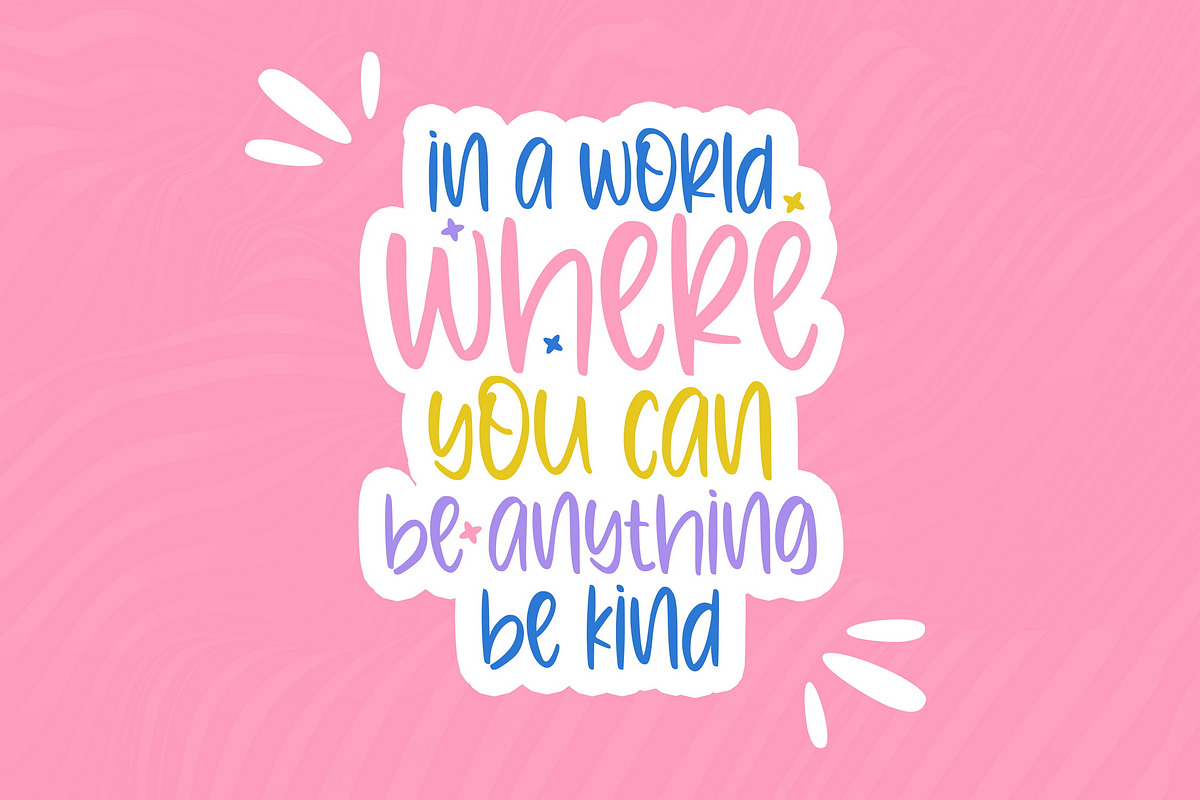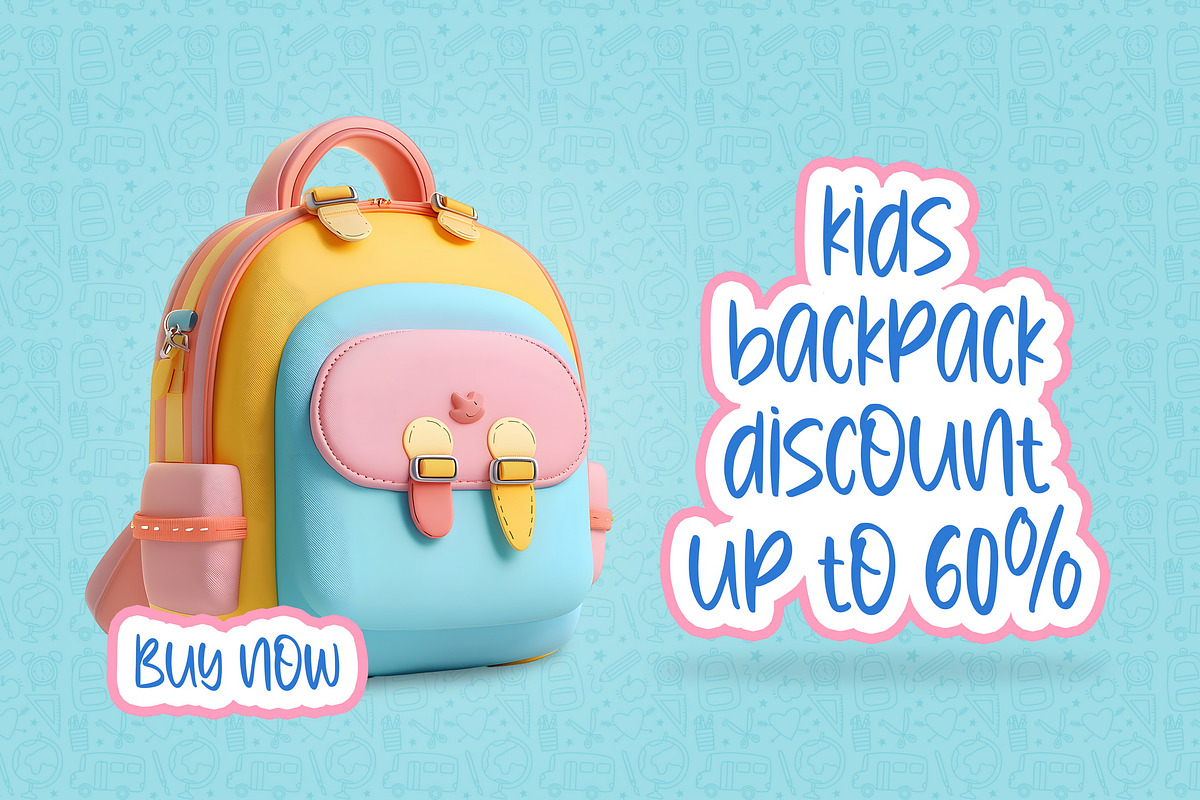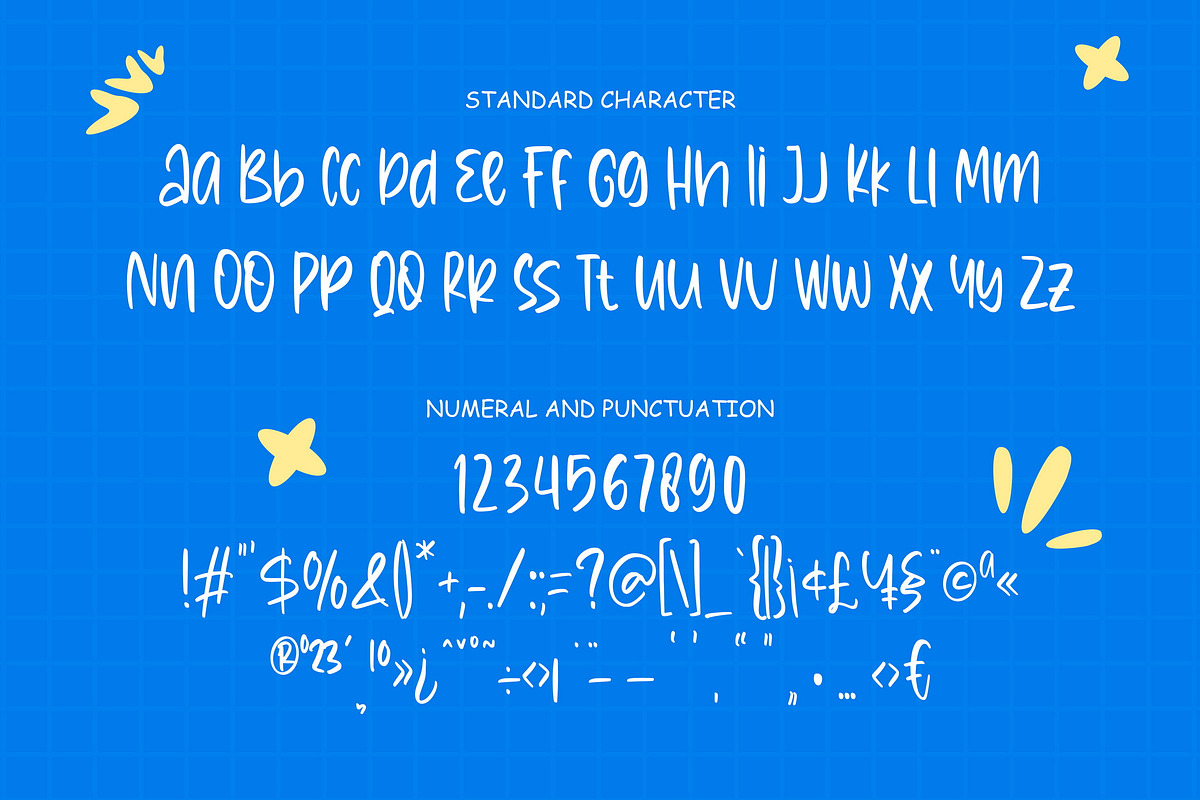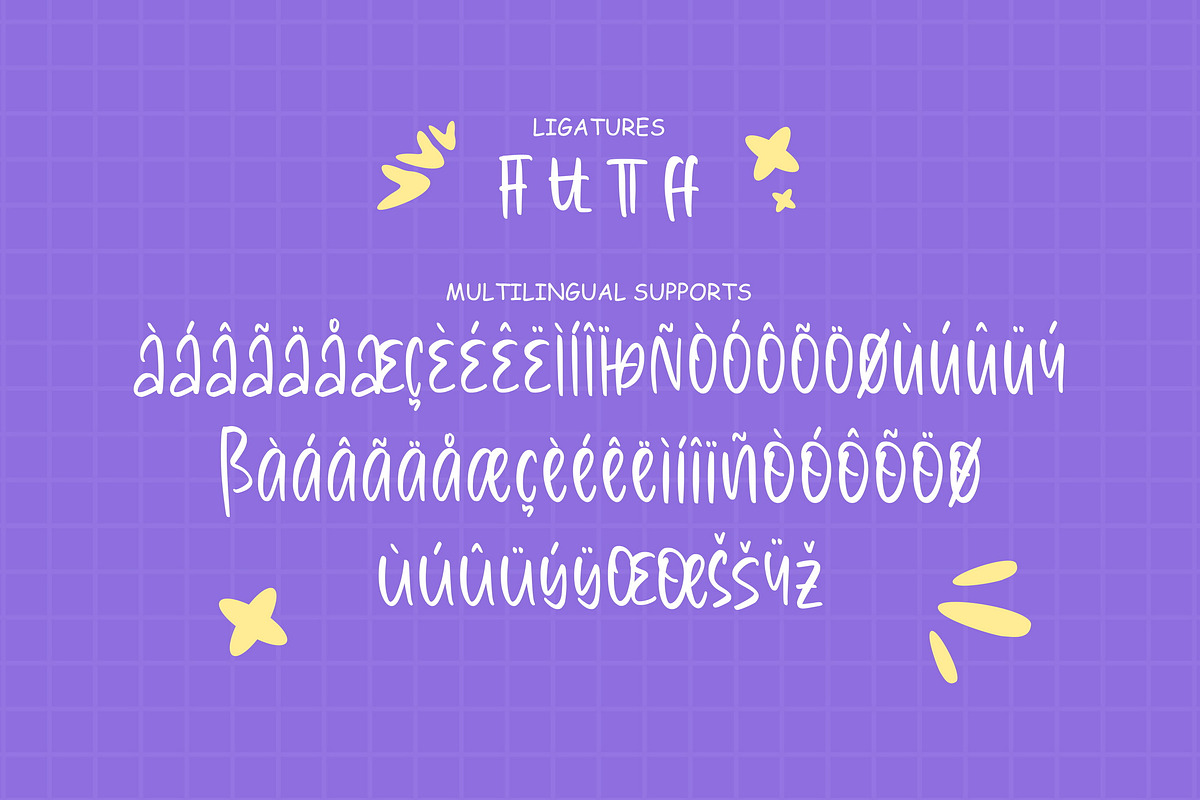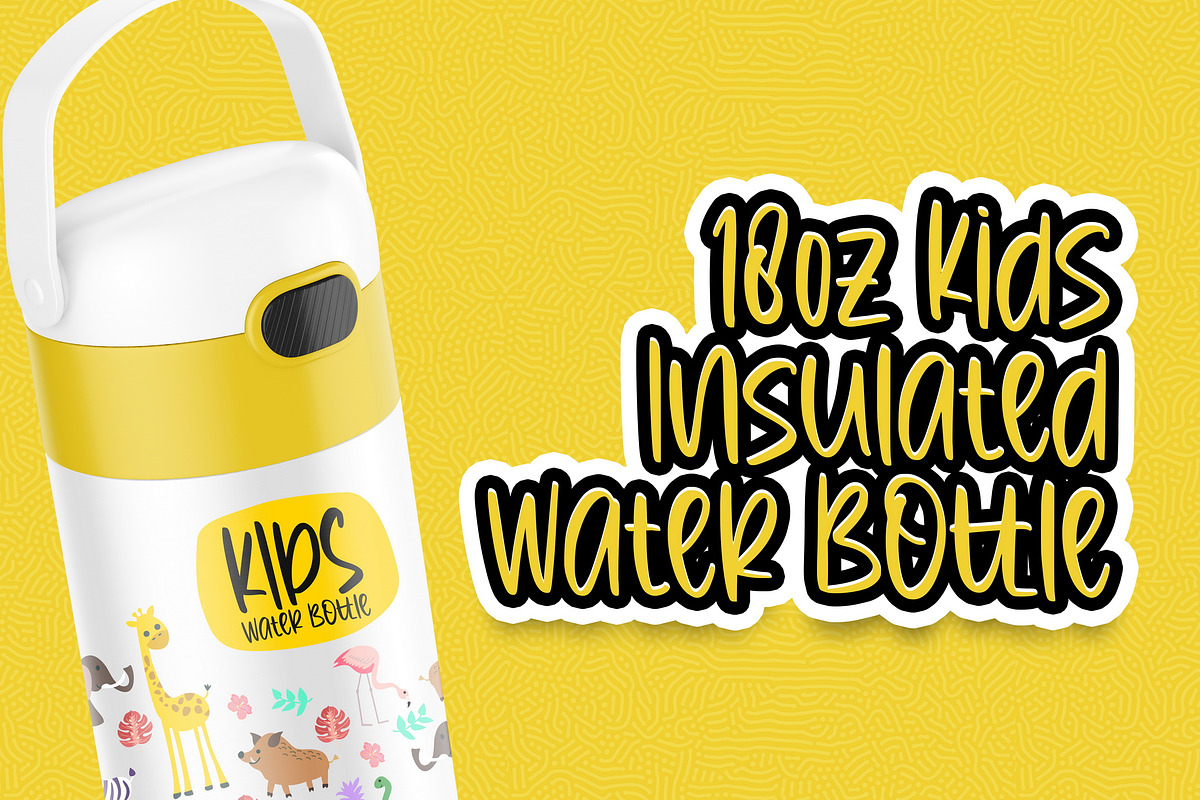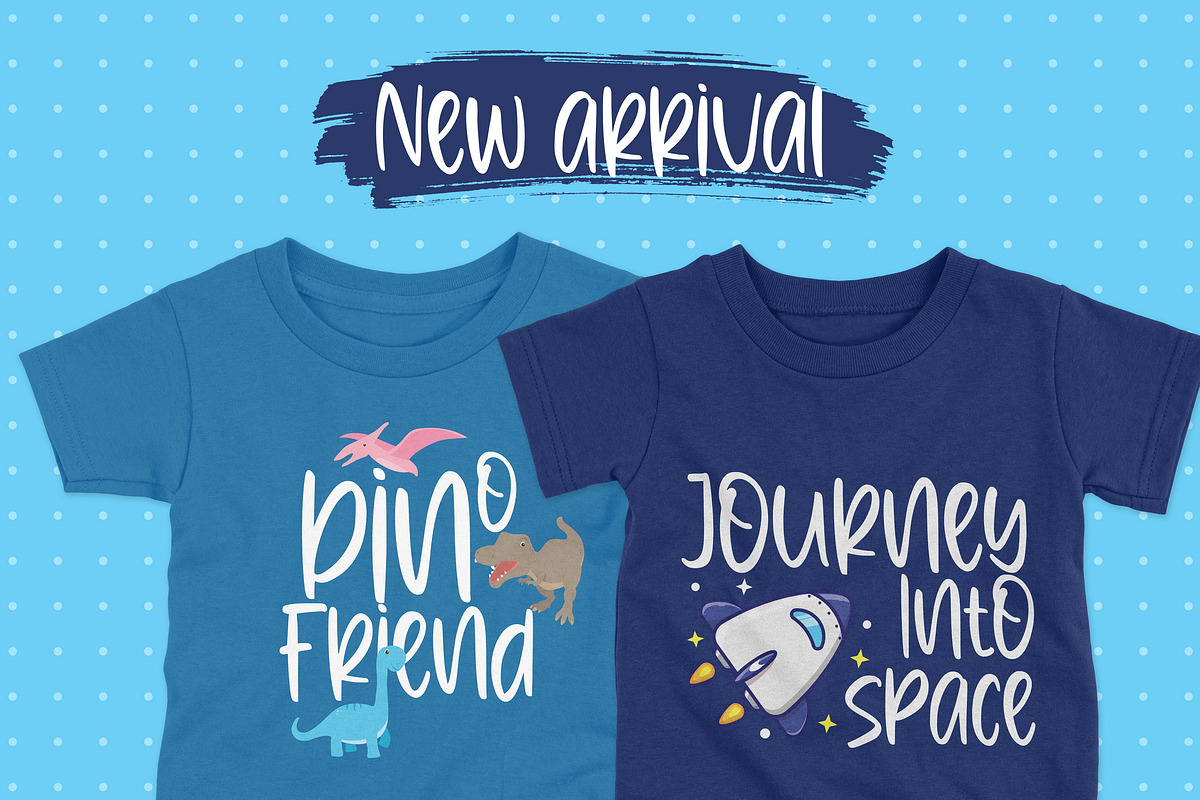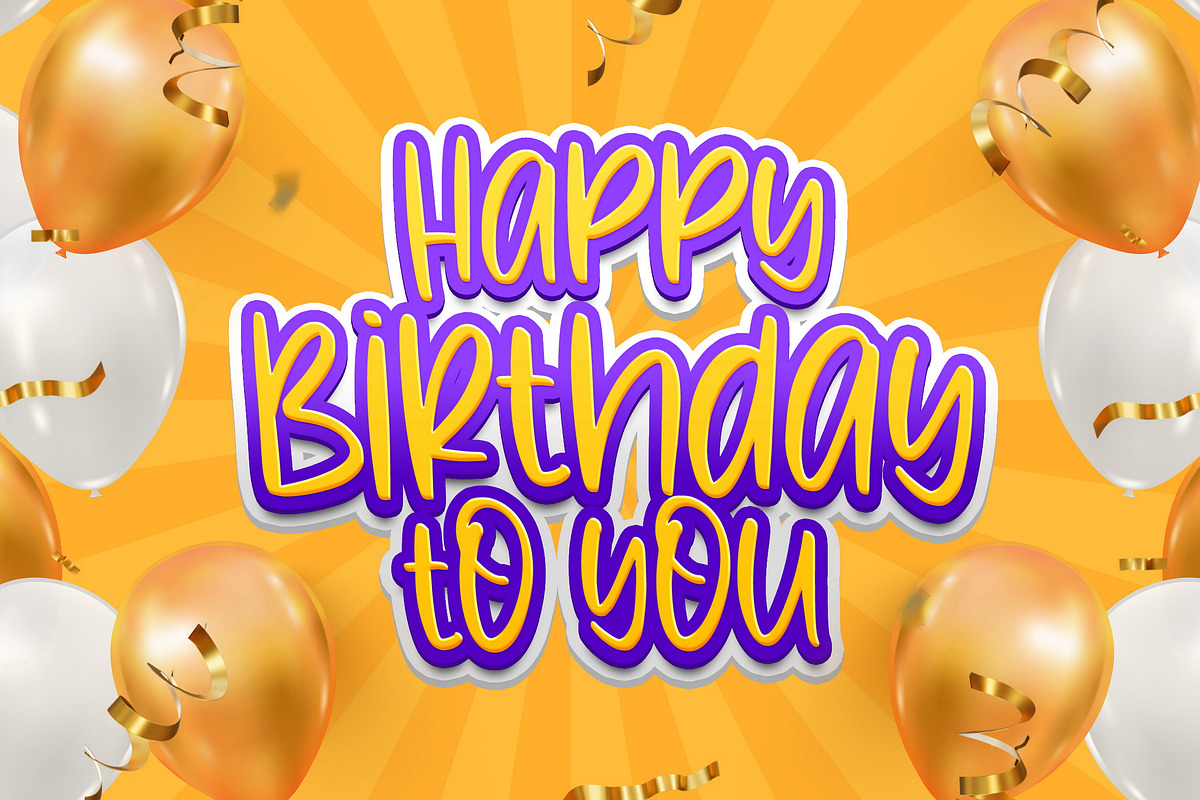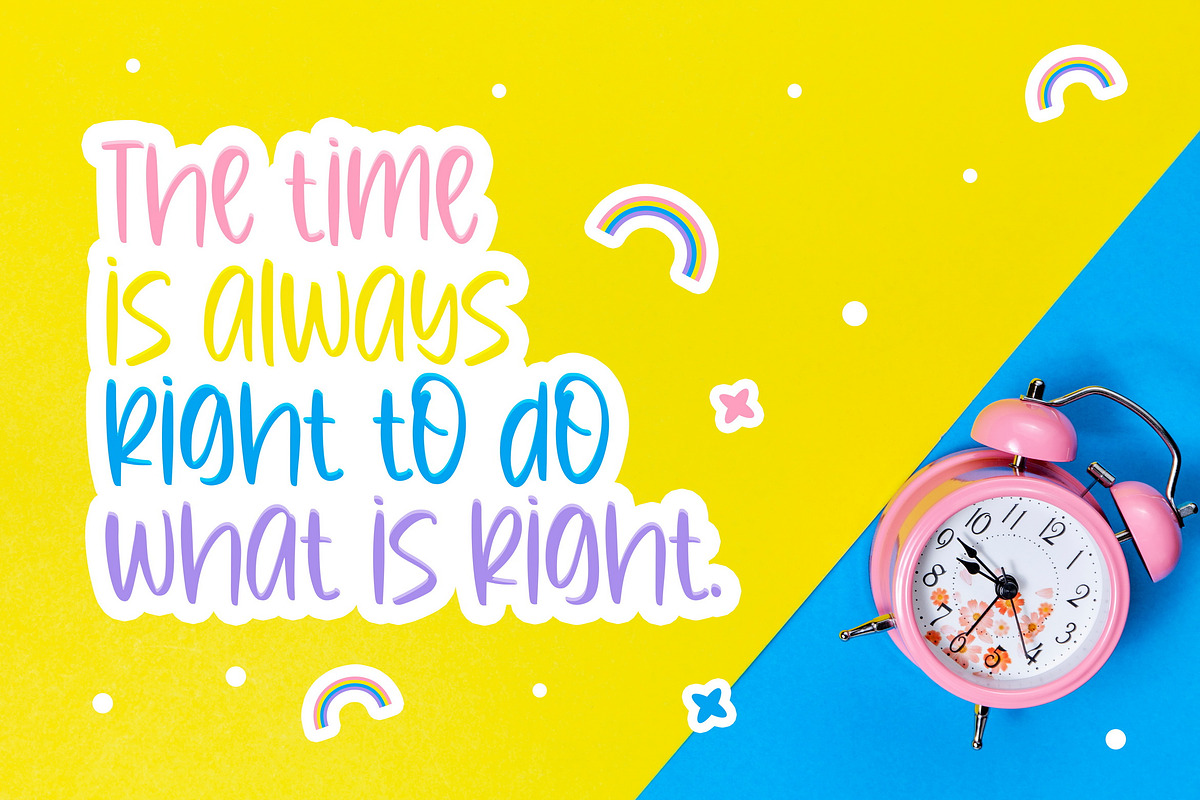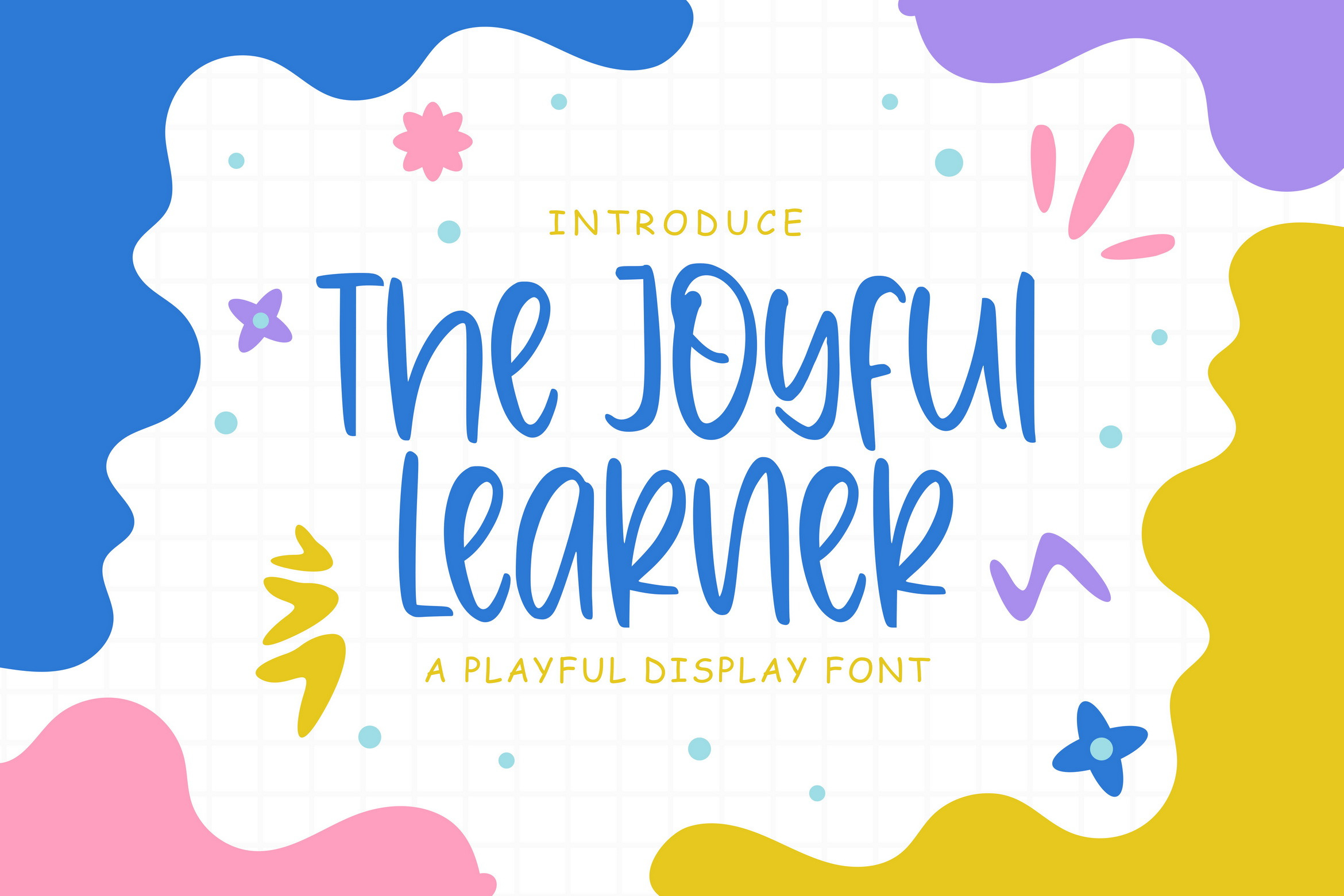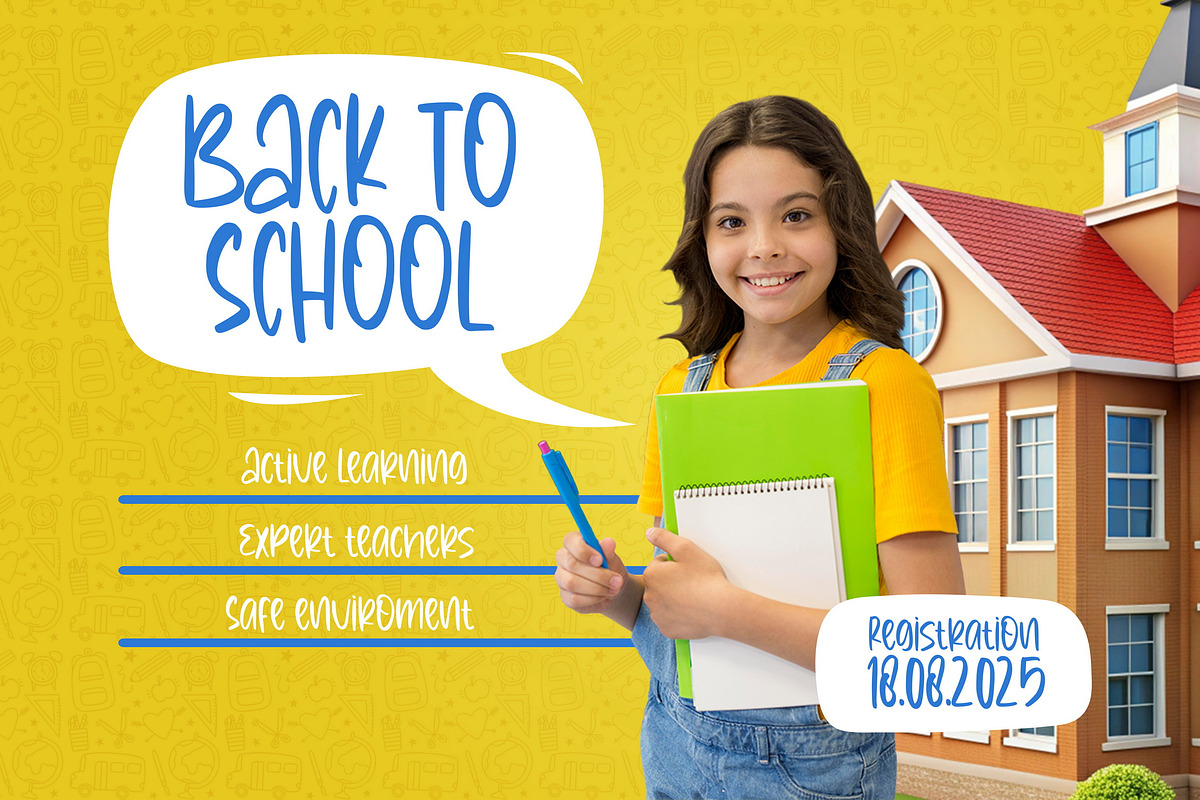
The Joyful Learners - A Playful Font
The Joyful Learners - A Playful Display Font
The Joyful Learners is specially designed to give a cheerful, friendly, and eye-catching impression. With its unique characteristics and stylish design, this font is perfect for a wide range of design projects, from graphic design, branding, illustration, product packaging, greeting cards or invitations and more.
- Uppercase & Lowercase letters
- Numeral and Punctuations